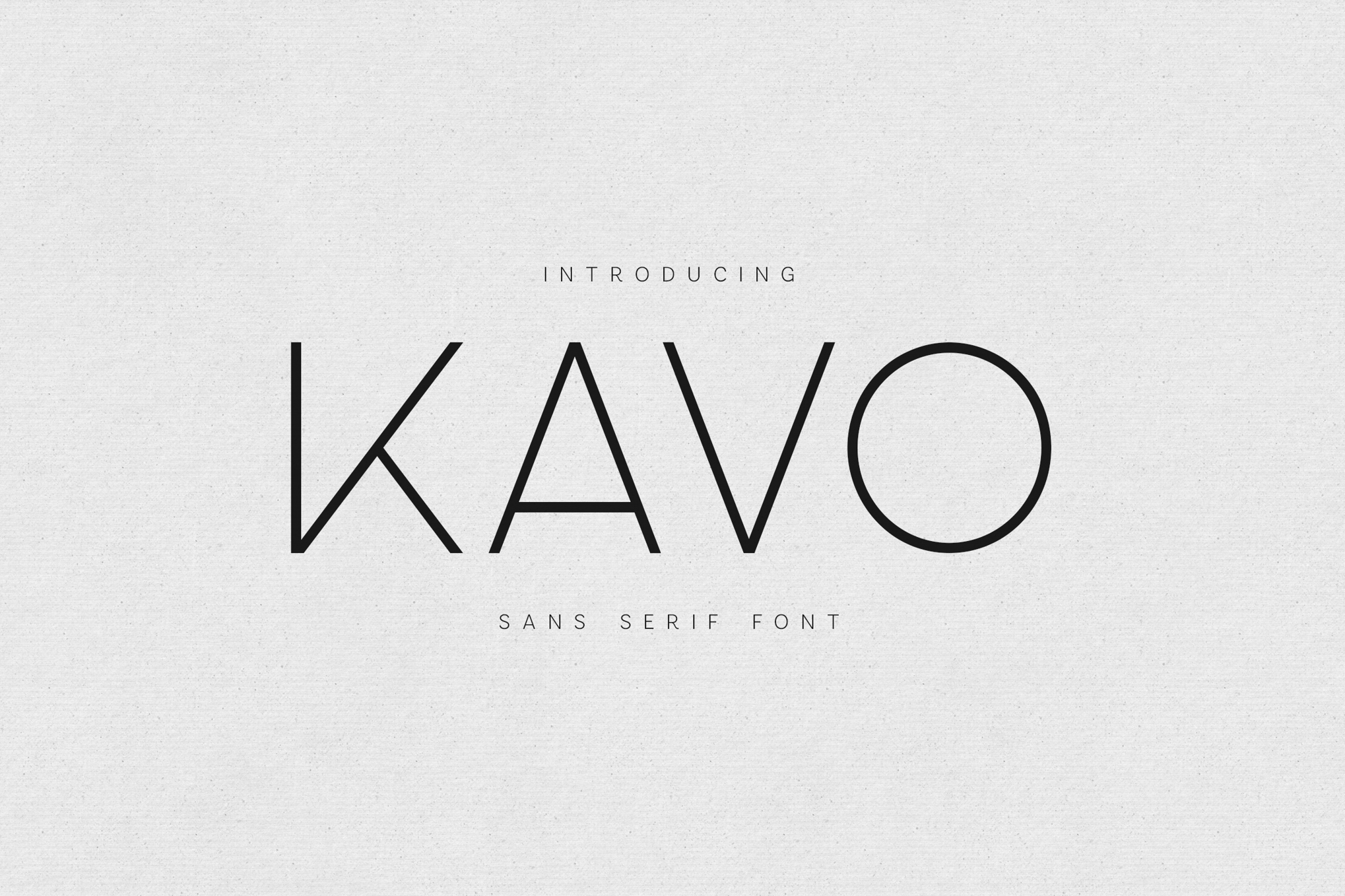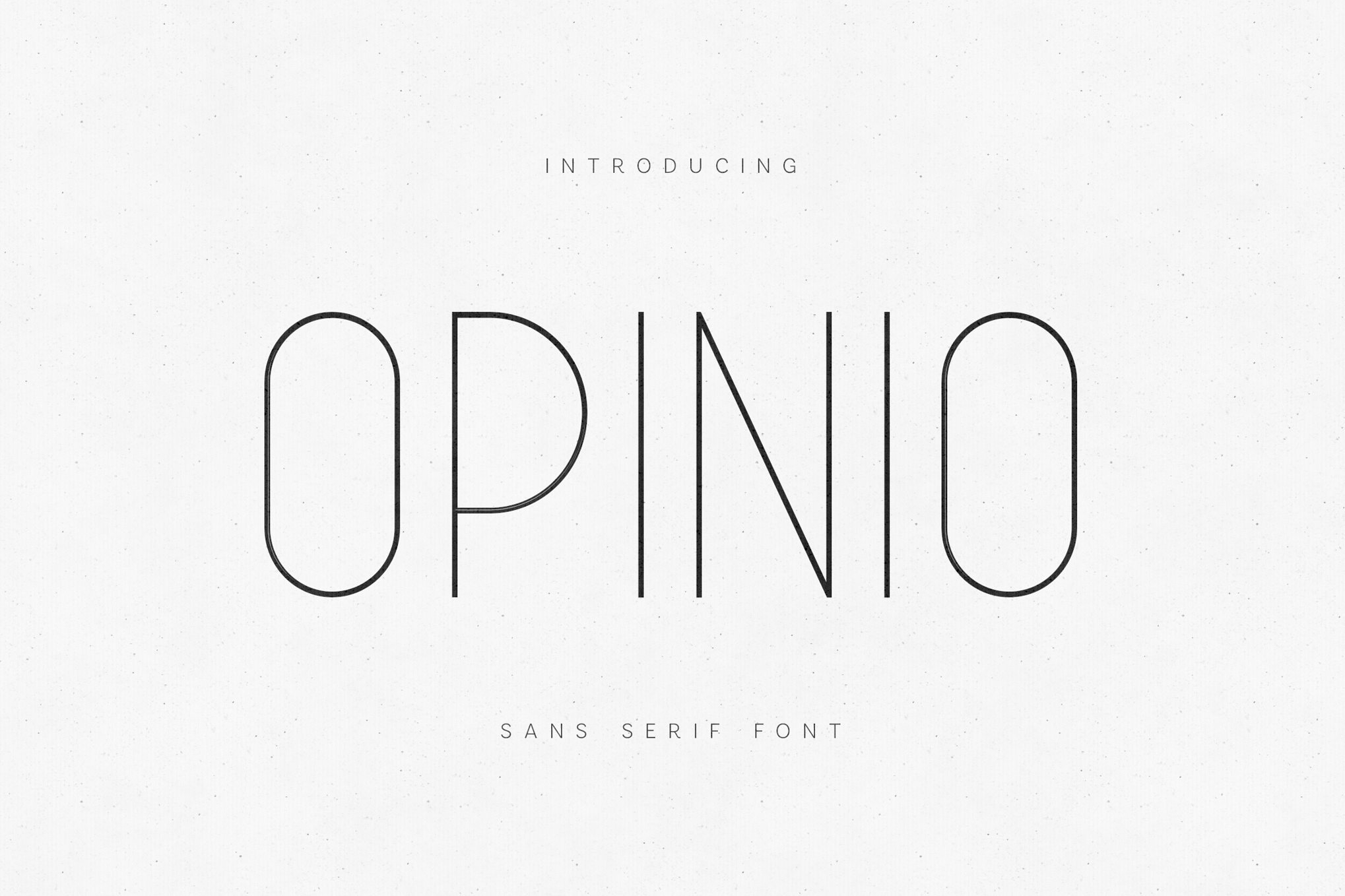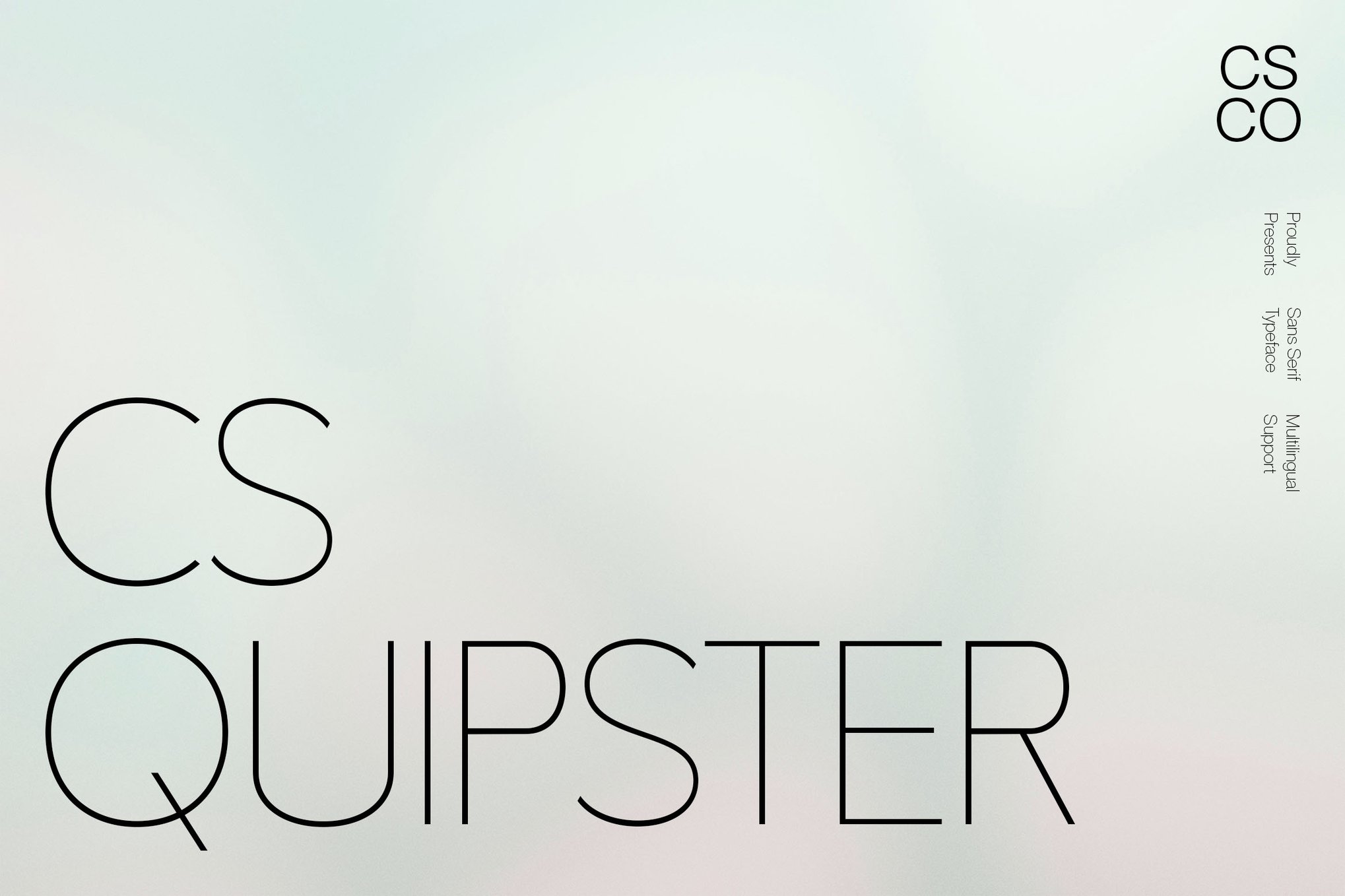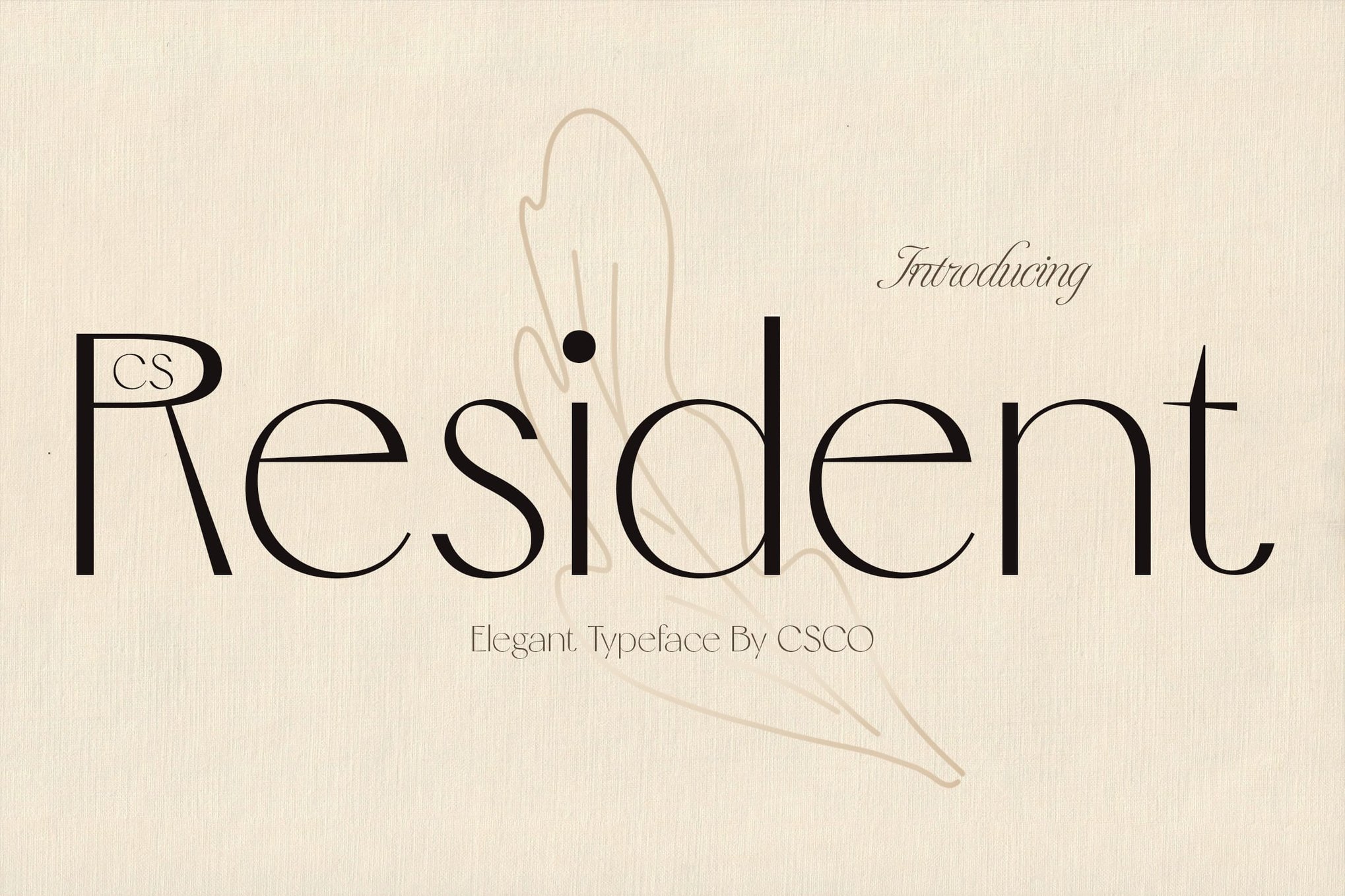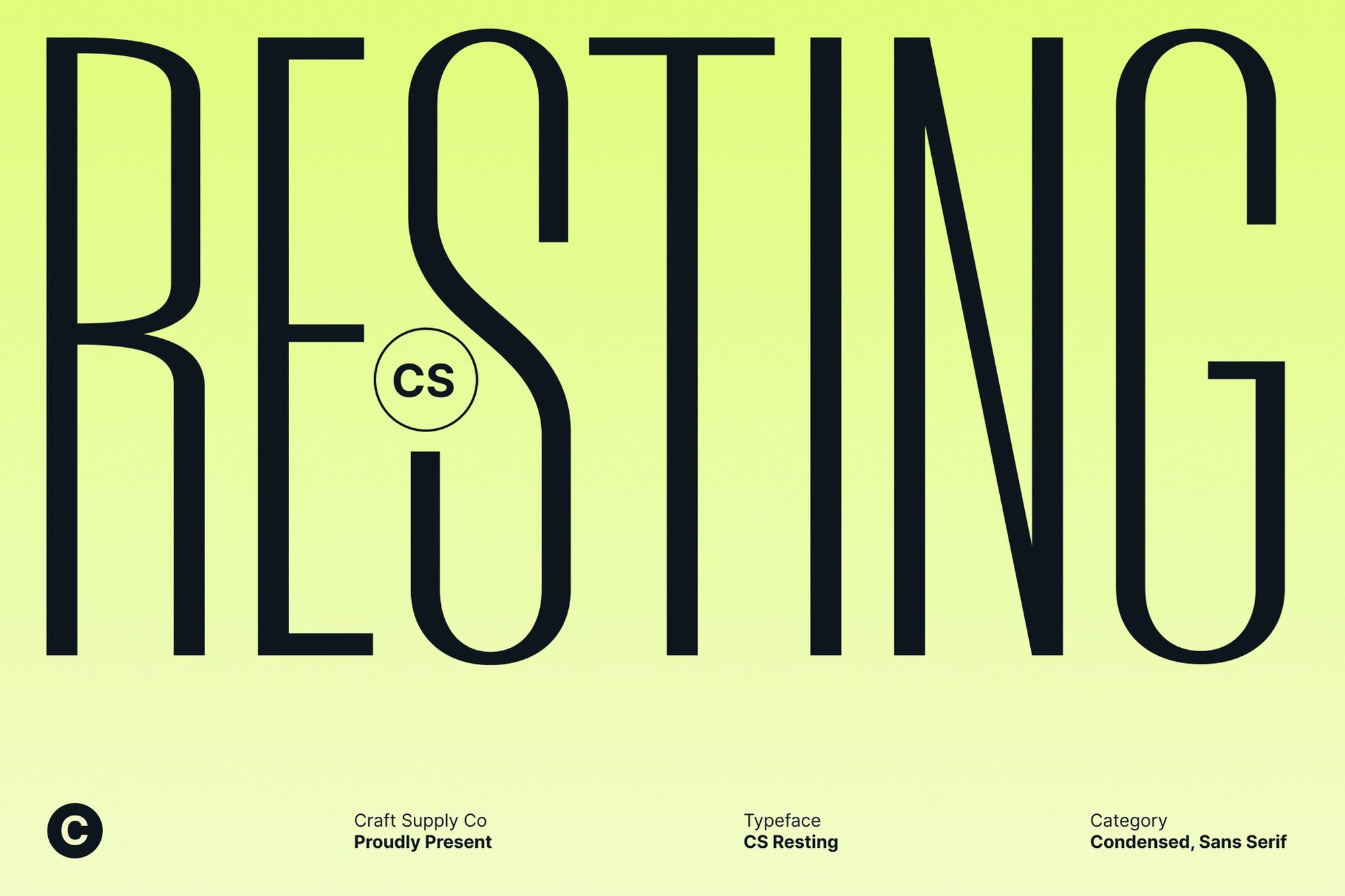
40 Awesome Thin & Skinny Fonts in 2026
Thin and skinny fonts are a popular choice in various print and digital designs. They are especially the perfect choice for designing titles and headings that convey a loving and friendly message.
While you can easily find a good thin font from various marketplaces, we did the heavy lifting for you to help you save time and effort. In this post, we present to you a handpicked collection of the best thin and skinny fonts you can download right now.
There are many different styles of sans-serif, script, cursive, and other skinny fonts in this list. You can use them for crafting everything from T-shirt designs to greeting cards, product labels, and much more.
We also included a few free thin fonts in this list. Have a look and be sure to download them all.
Resting - Modern Condensed Thin Font
Resting is a sleek, sans serif typeface designed for maximum impact in limited spaces. Its modern, minimalistic design ensures clarity and style, making it perfect for headlines, posters, and branding. With excellent readability and a versatile aesthetic, this font supports multilingual characters and comes in regular, italic, and reverse italic styles.
Resident - Elegant Thin Font
Resident embodies modern simplicity and sophistication through its sleek and minimalist design. Ideal for corporate branding, editorial projects, and websites, this refined sans serif font offers versatility and clarity. It comes with regular, italic, and reverse italic styles, supporting multilingual characters. Resident ensures your designs leave a lasting, professional impression.
Opinio - Minimal Thin Font
Opinio is a minimalist sans serif font with thin lines and a geometric design, perfect for creating sleek and modern branding. Its airy and elegant style enhances readability, making it ideal for logos, editorial layouts, and digital media. Versatile and sophisticated, Opinio includes uppercase, lowercase, numbers, punctuation, and supports multiple languages for diverse creative projects.
Kavo - Minimal Thin Sans Serif Font
Kavo is a sleek, thin sans serif font perfect for creating modern and refined typography. Its geometric structure and balanced proportions offer a calm and contemporary aesthetic. Ideal for branding, logos, websites, and more, Kavo includes a full character set and multilingual support. Compatible with major design software, it brings clarity and style to any project.
Quipster - Thin Geometric Font
Quipster is a thin, geometric sans serif font that combines minimalist style with elegance and precision. Its clean design offers a modern aesthetic perfect for professional branding and editorial layouts. With its refined strokes and versatility, Quipster delivers a polished look for both formal and casual settings, making it an ideal choice for designers seeking sophistication and clarity.
Gello - Modern Thin Font
Gello is an elegant sans serif typeface that boasts sleekness and stature. Despite its minimalist design, the typeface captivates with three unique variants: Thin, Regular, and Bold. Its clean lines make it an excellent choice for headlines, posters, and titles.
Blissful - Modern Stylish Thin Font
Take your designs up a notch with Blissful, a modern, stylish and slender serif font. Highly adaptable, its crisp, clean style is perfect for virtually any design need. This font comes in OTF, TTF, and WOFF formats, with PUA encoding.
Thin King - Tall & Condensed Font
Thin King is a distinctive skinny font offering a bold and authentic style. Ideal for various branding projects, from posters and logos to sports-related designs, it’s versatile and impactful in numerous settings. The package includes the Thin King font in OTF, TTF, and WOFF formats.